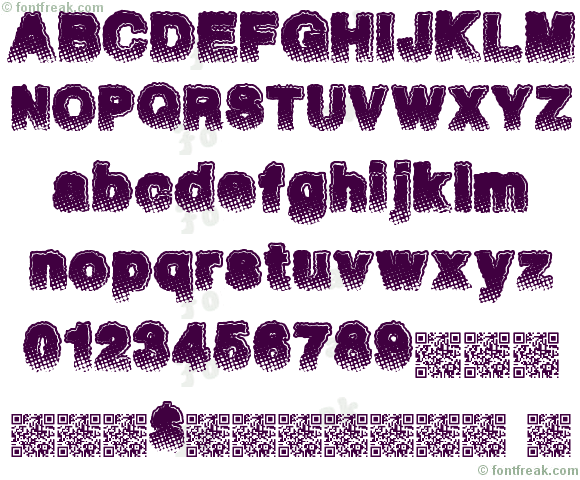
WitchesBrew
About WitchesBrew
WitchesBrew by Xerographer Fonts is a captivating display font that draws inspiration from mysticism and the enchanting world of witches. This unique typeface features a playful, irregular style characterized by its bold, uneven stroke weight and a textured appearance that resembles hand-drawn elements. The contrast in thickness adds depth, making each letter stand out with a whimsical flair. The spacing is intentionally varied, contributing to its eclectic charm and enhancing the overall aesthetic.
This font is particularly well-suited for a range of creative projects. It shines in contexts such as Halloween-themed invitations, where its whimsical yet slightly eerie vibe can set the perfect tone. Additionally, WitchesBrew is an excellent choice for movie posters that lean into the supernatural or fantasy genres, allowing designers to capture attention with its distinctive character. Restaurant menus, especially for establishments that embrace a quirky or alternative vibe, can also benefit from the playful nature of this font. Furthermore, it can be effectively used in social media graphics aimed at content creators looking to engage an audience with a touch of fun and creativity.
What sets WitchesBrew apart is its ability to balance whimsy and readability, making it versatile for various applications while still maintaining a strong visual presence. For anyone looking to add a touch of magic to their designs, the WitchesBrew font free download is an opportunity not to be missed.